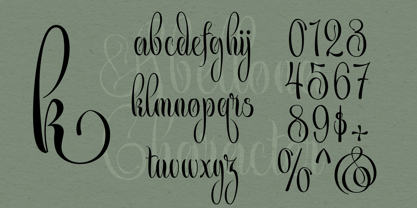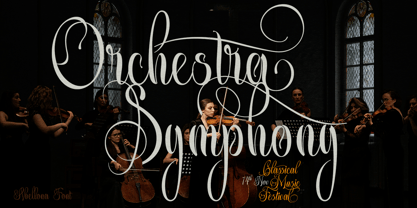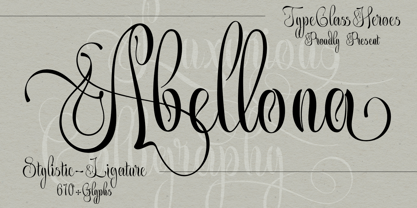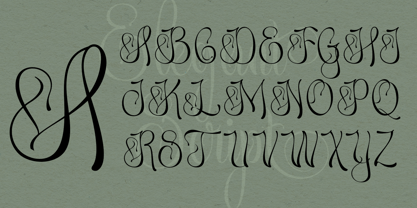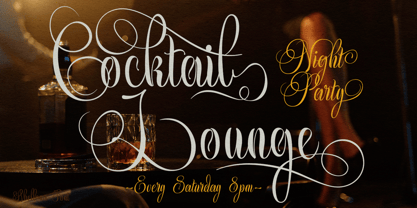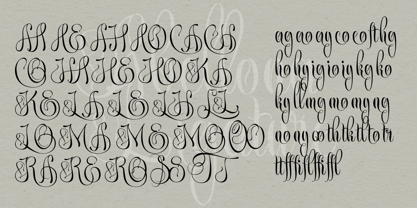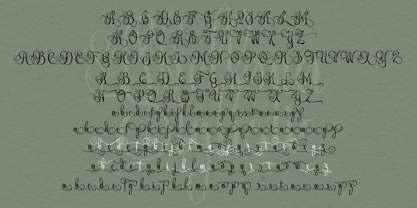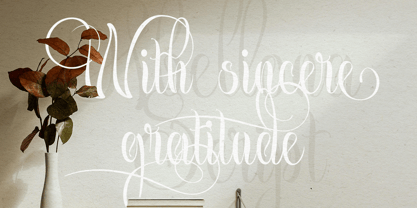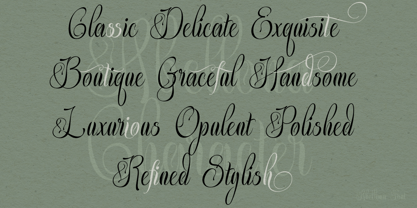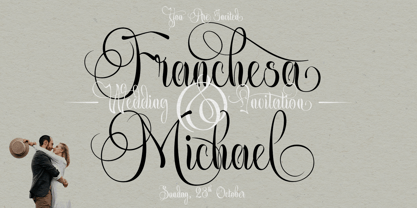
Abellona
The Abellona Font Family was designed by Suandana ipandemade and published by TypeClassHeroes. Abellona contains 2 styles and family package options. More about this family
Abellona font combines subtle curves to create a timeless, elegant and romantic feel. With its flowing, well-proportioned letterforms, it exudes a sense of luxury. Designed with an artistic touch and natural elegance, this script font is perfect for projects that emphasize beauty and delicacy. This font is perfectly made to be a logo, and the other various formal forms such as invitations, labels, logos, magazines, books cover, greeting cards, packaging, make up, novels, labels or whether you’re creating digital content or printed materials.